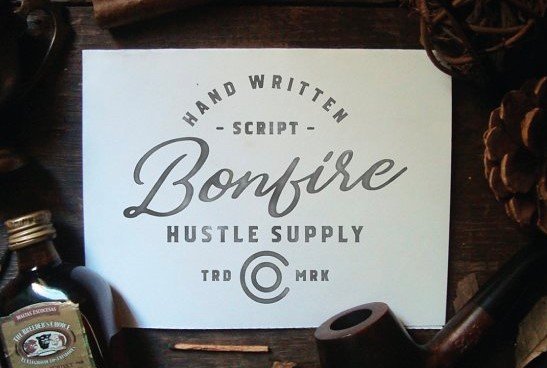
The typeface comes with rich features that include bold, regular, and medium styles. It can be download and use with the combination of shadows into light font
Presenting the exceptional Bonfire Script Font, crafted with a genuine handwritten texture. This font is available for personal use only as it is offered in a free version for download. However, if you wish to use it for commercial projects, you will need to purchase the font from Hustle Supply Co., the creator of this typeface.